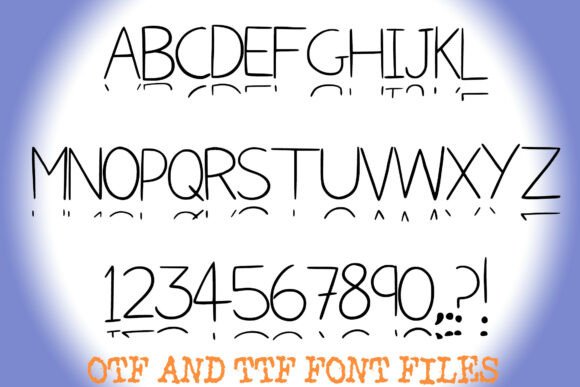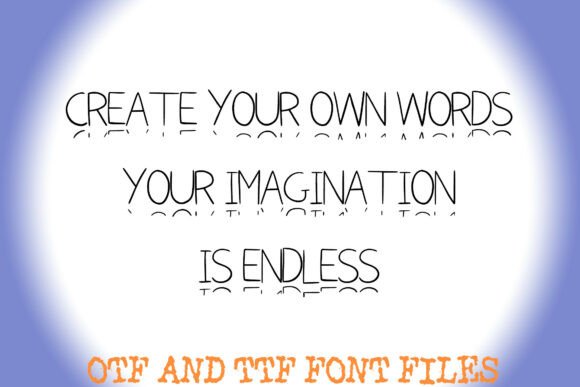
Introduction to Floating Shadow Font
Give your text a lift with Floating Shadow Font, a playful hand-drawn typeface that jumps right off the page.
This unique display font features a clean, sans-serif handwritten style paired with a signature detached “shadow” line beneath every character, creating a fun, dimensional effect Perfect for adding a bit of whimsy to your designs, Floating Shadow Font mimics the look of neat classroom doodles and bullet journal headers.
Key Features of Floating Shadow Font
Why Choose Floating Shadow Font?
Floating Shadow Font offers exceptional quality and versatility, making it a valuable addition to your design toolkit. Whether you’re creating for personal projects or commercial use, Floating Shadow Font delivers professional results.